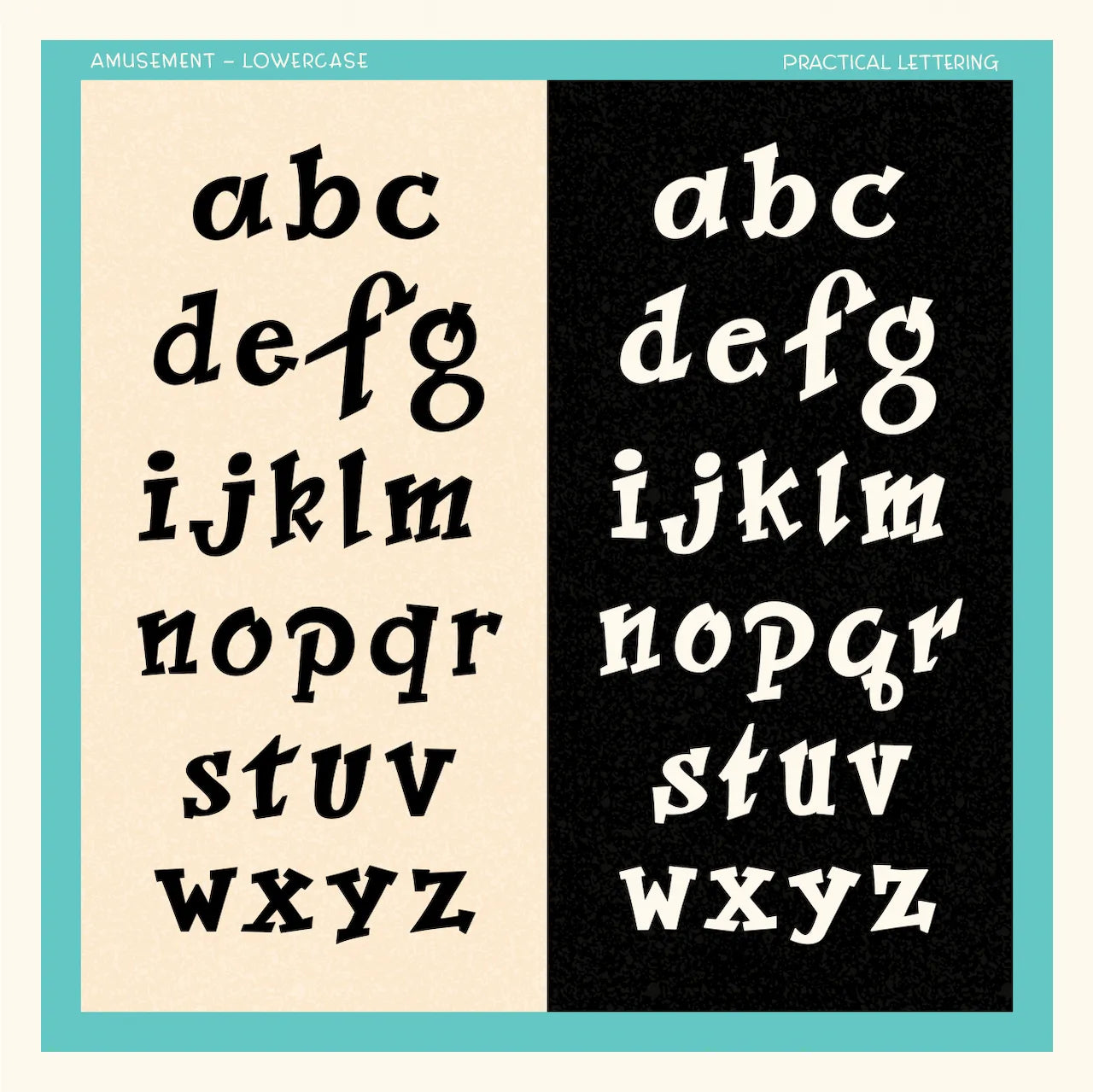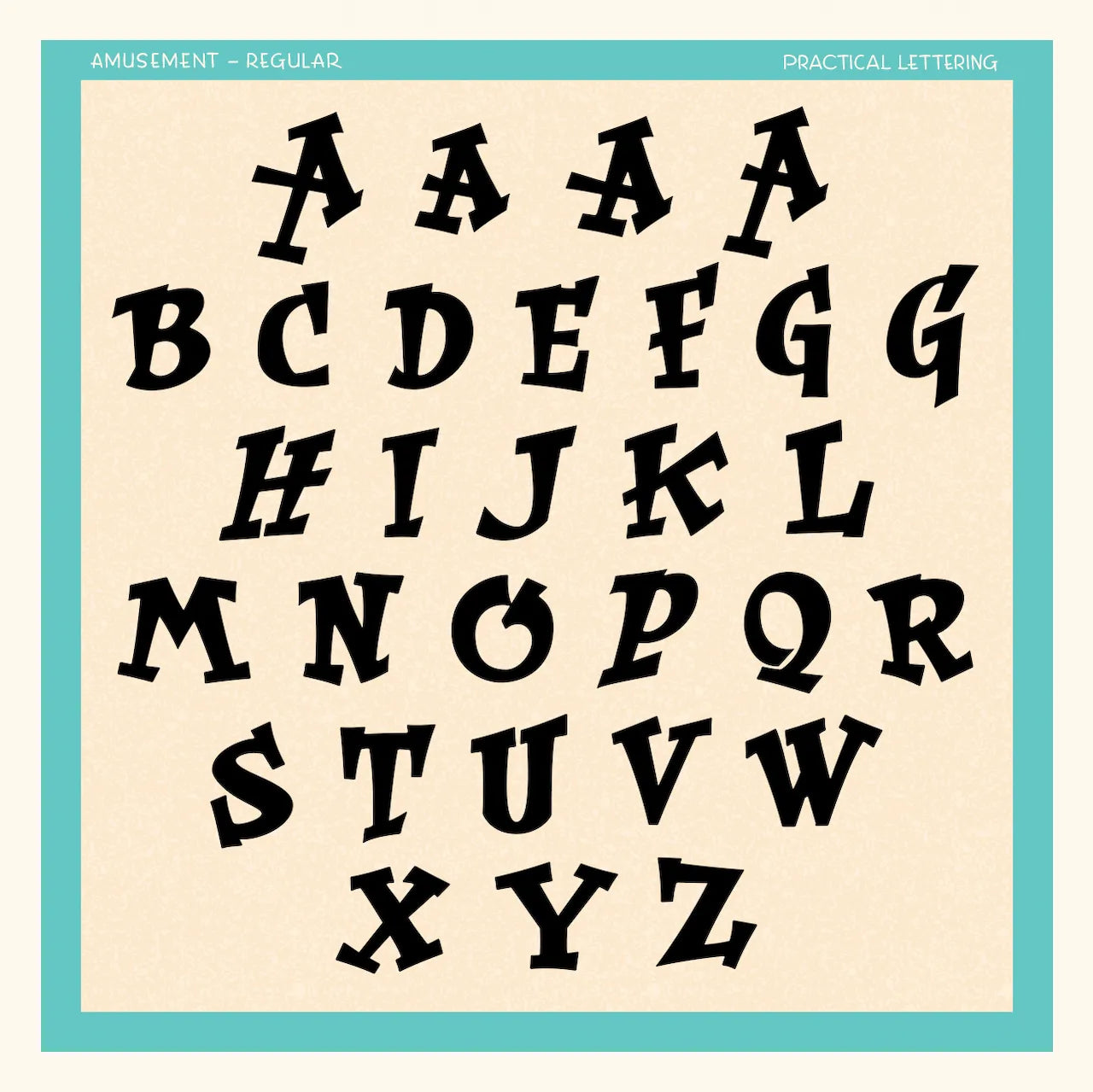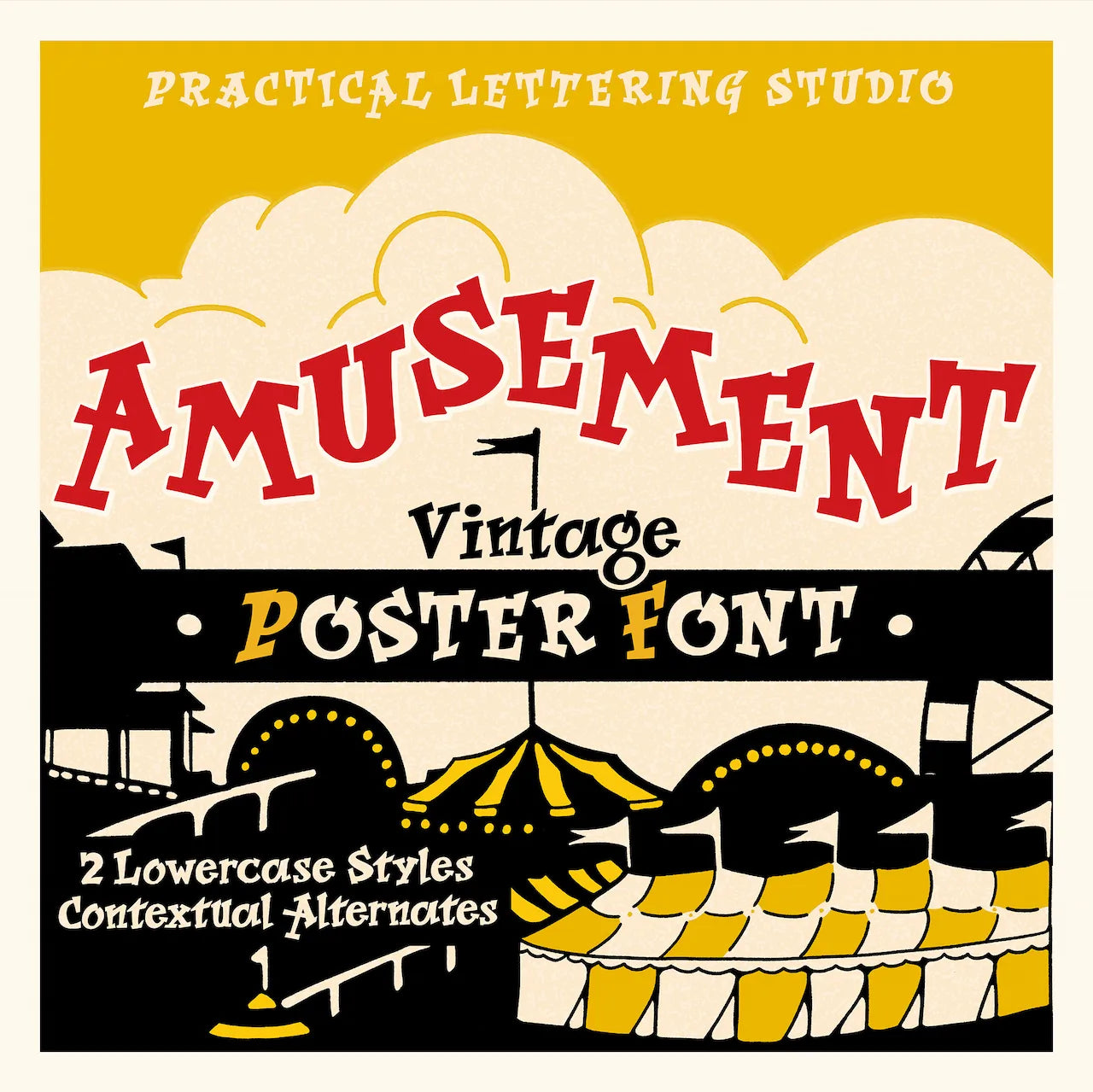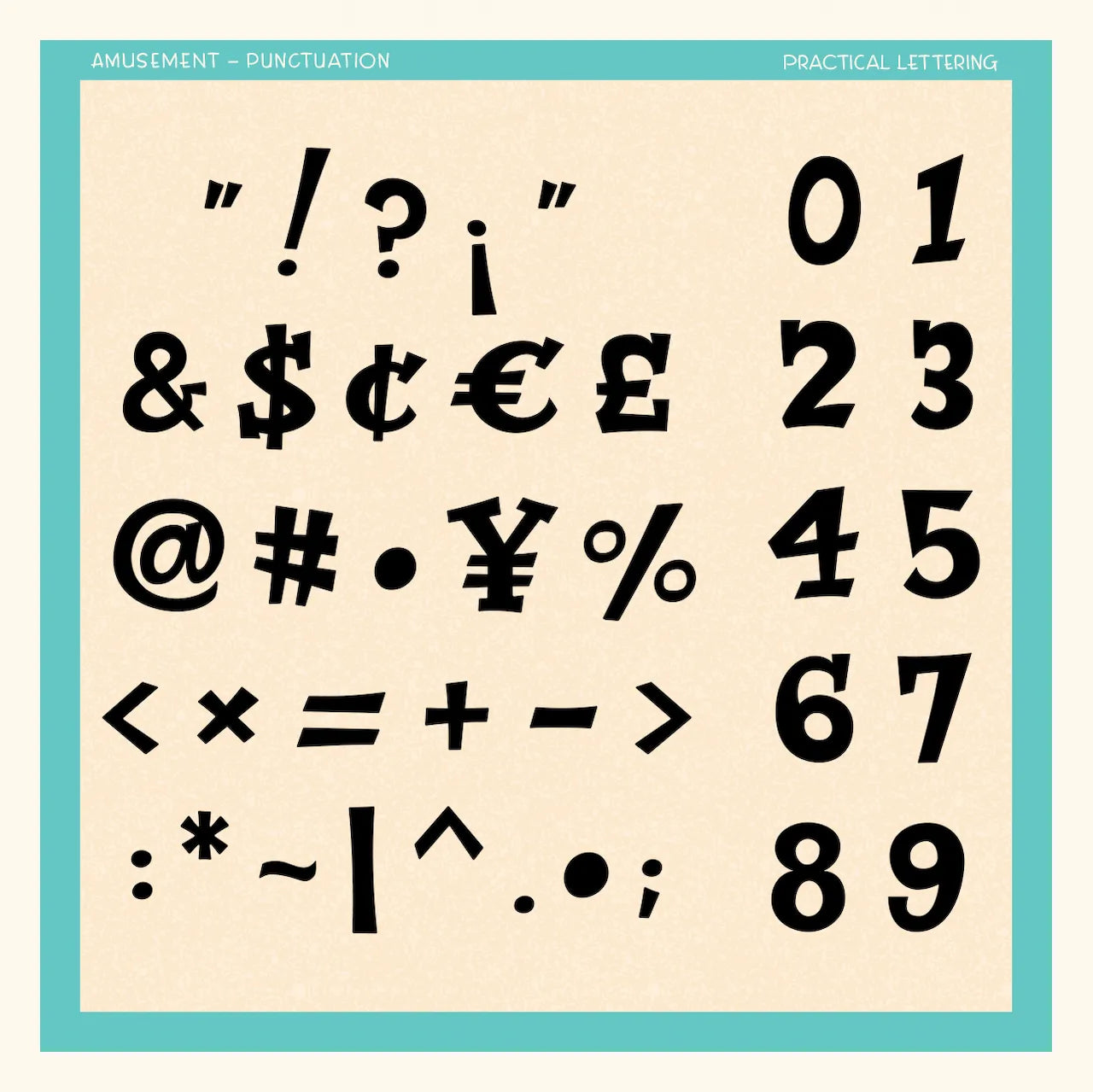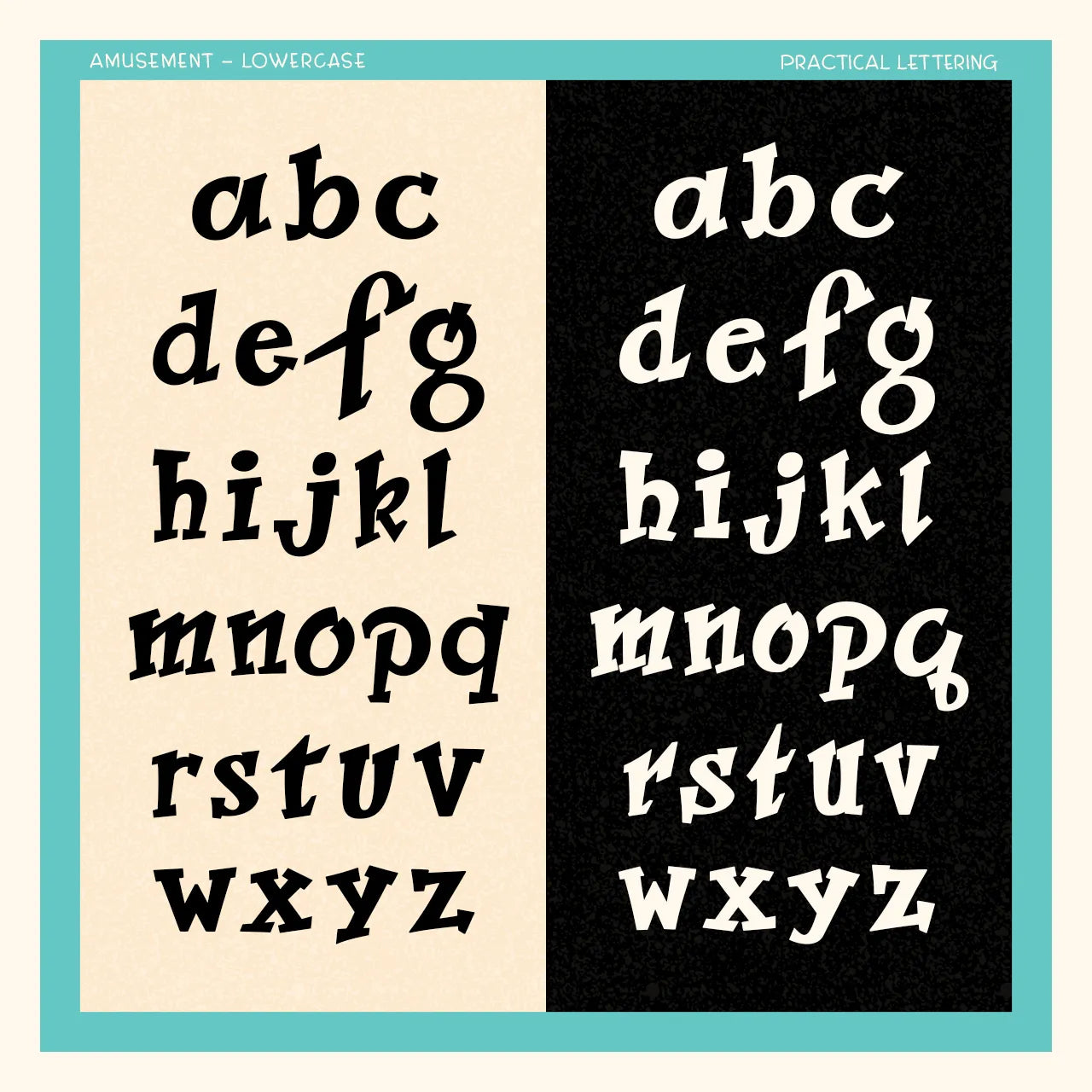
A bold, playful & unique poster font!
AMUSEMENT is based on a hand painted alphabet created by sign painter Alf Becker in the mid 1940s for Signs of the Times magazine.
The alphabet is a bold display style originally designed for show cards, posters and headlines.
Amusement includes uppercase with newly added lowercase, punctuation and numbers, not found in the original reference.
- Two lowercase styles (standard + alternates)
- Contextual Alternates to auto-swap variations where letters repeat.
- Uppercase, lowercase, numbers, and punctuation.